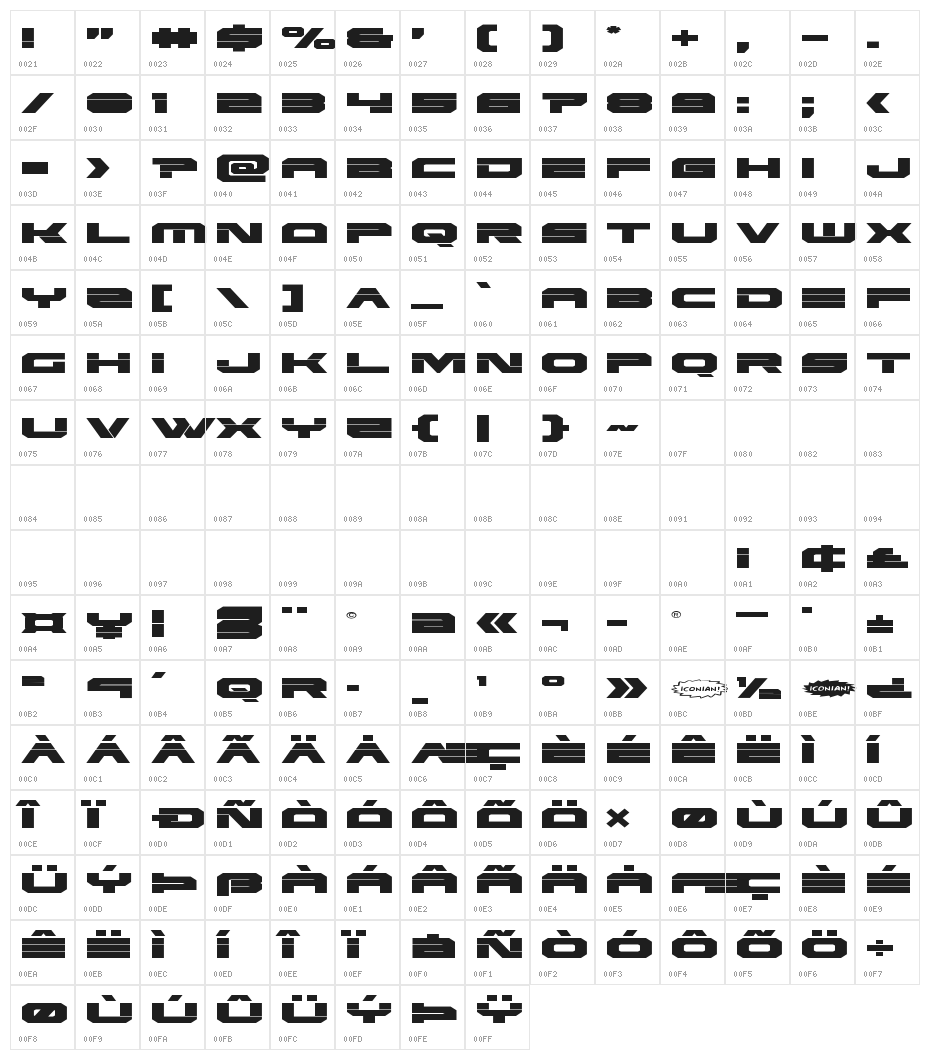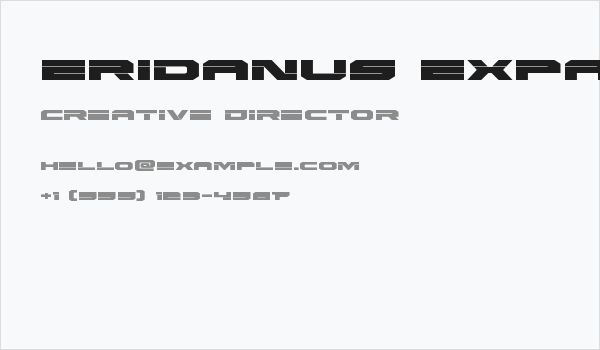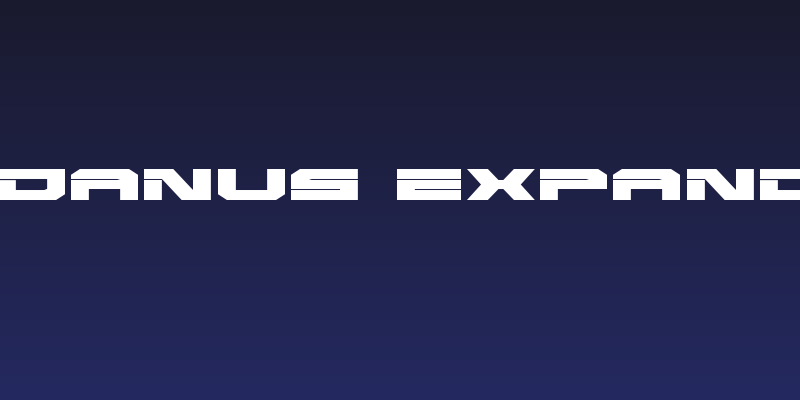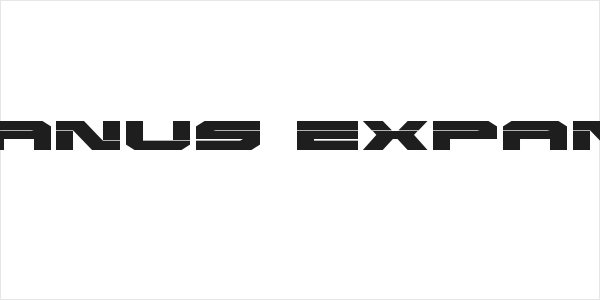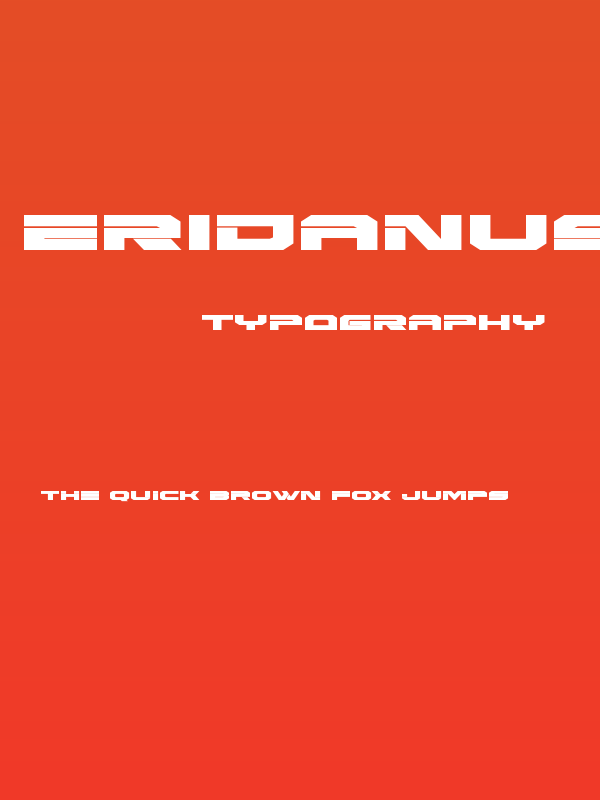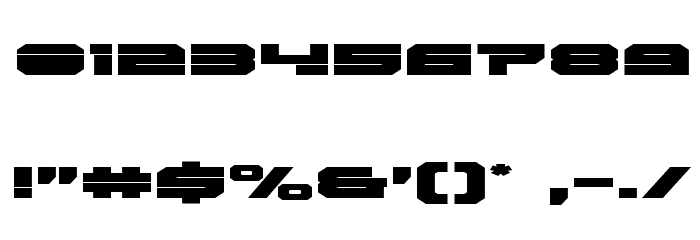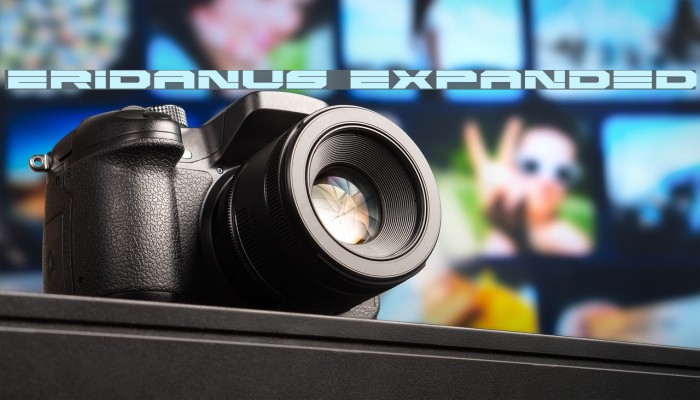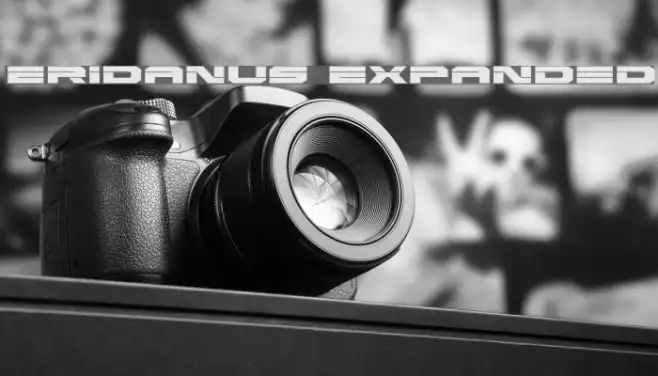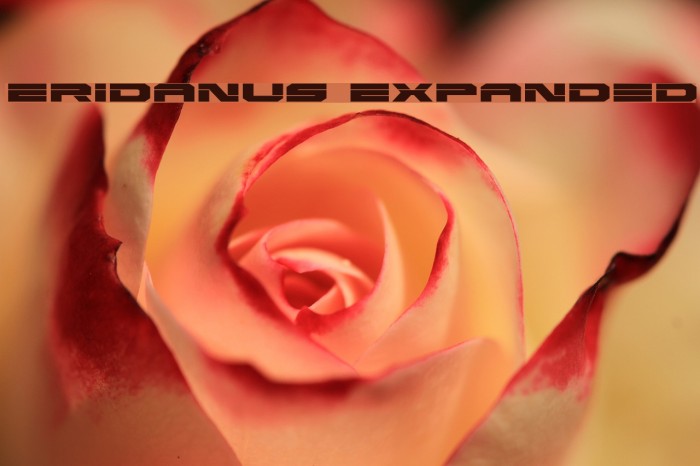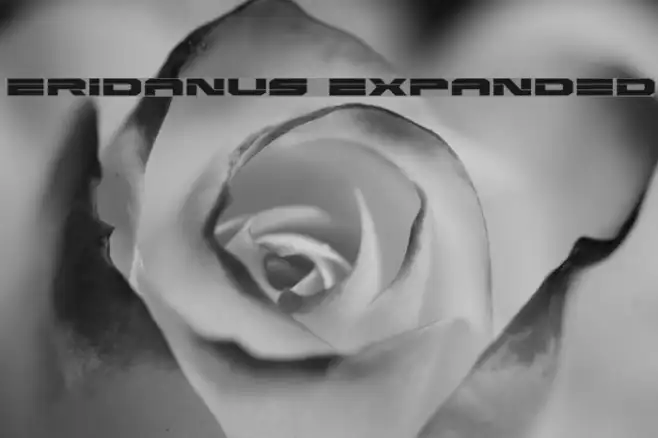
Eridanus Expanded Font
Eridanus Expanded Description
This font features a bold, futuristic design with a distinctly geometric and angular appearance. The characters are wide and have a blocky structure, giving them a strong presence. The uppercase and lowercase letters maintain a consistent style, with sharp edges and a uniform thickness throughout. The numbers and special characters follow the same design principles, ensuring a cohesive look across all elements. The font's expanded width and bold weight make it ideal for attention-grabbing headlines and titles. Its modern and dynamic style is suitable for projects that require a contemporary and impactful visual identity.
| Proposed Projects | Ideal for sci-fi themed designs, technology branding, video game titles, and modern advertising campaigns. |